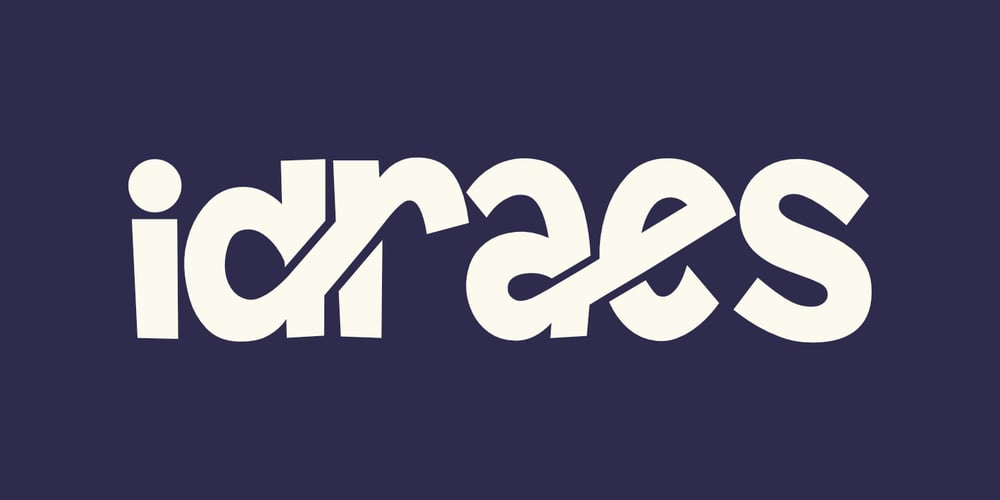
Idraes Font Family was designed by Saiful Anwar and published by Sealoung. Idraes contains 1 styles and family package options. Idraes Unique Bold Sans Serif Typeface is designed to leave a bold, unforgettable mark on any design. With its strong, clean lines, Idreas delivers a modern and eye-catching presence, perfect for various creative projects.Key Features: Bold & Attention-Grabbing: Its thick, structured design makes it ideal for headlines, posters, logos, and any elements that need to stand out. Distinctive Design: Each letter is crafted with precision, combining strength with simplicity for a clean and polished look. Highly Versatile: Suitable for a wide range of projects, from branding and advertising to digital content and beyond. Complete Character Set: Includes uppercase and lowercase letters, numbers, punctuation, and stylish ligatures, ensuring flexibility in any design. Enhanced with Ligatures: Features a variety of creative ligatures that add unique touches to your typography, improving both visual appeal and readability. Perfect for:Creating bold, modern headlines for articles, blogs, and web designDesigning eye-catching posters for events and campaignsBuilding a strong, sleek brand identityCrafting visually compelling advertising materialsMake your designs pop with Idraes Bold Sans Serif Typeface, a font that effortlessly combines strength and simplicity, enhanced with ligatures to give your projects an extra touch of sophistication.